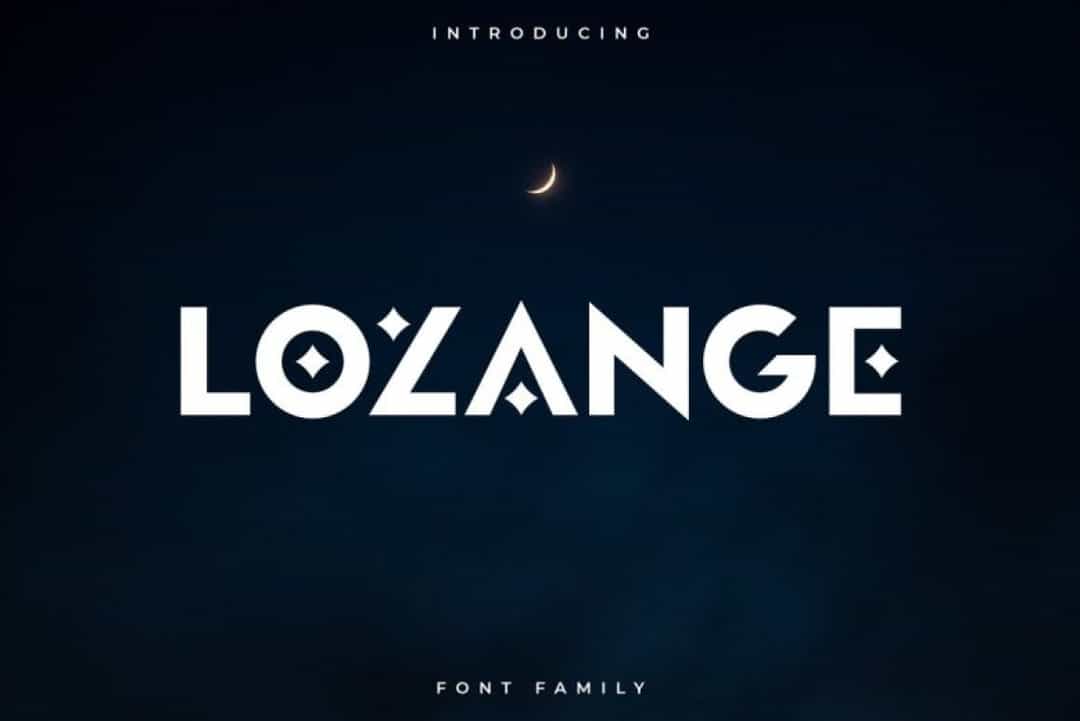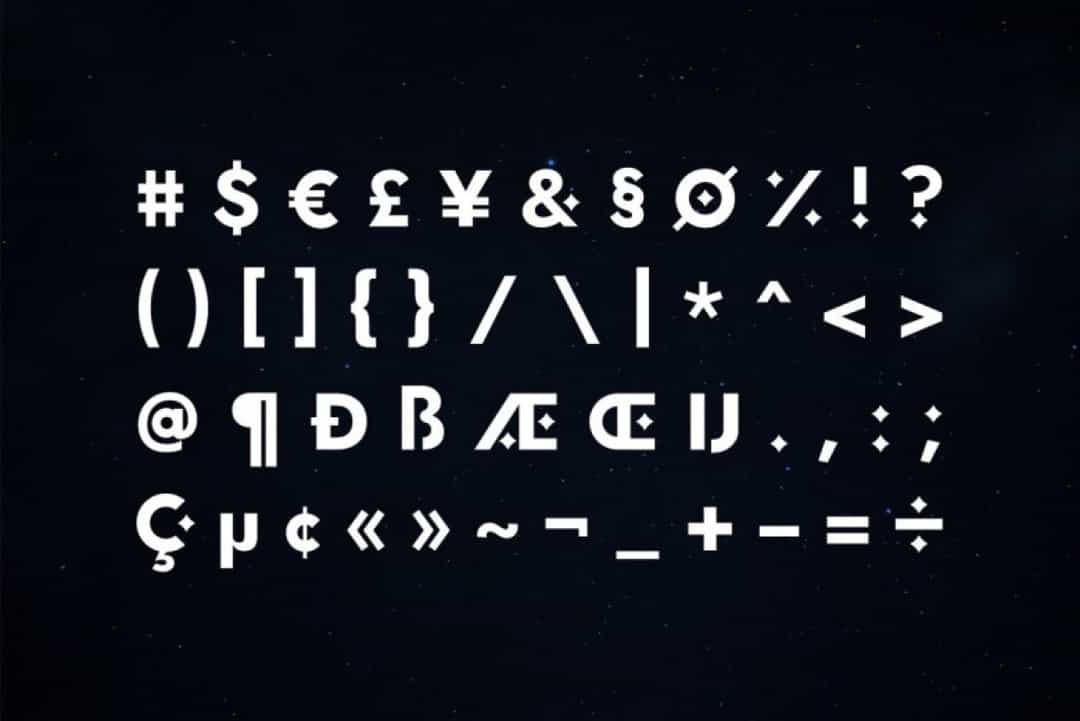
Lozange Font
Lozange is an eye-catching, minimalist and elegant sans serif font designed with flexibility in mind, suitable for both small and large sizes. Ideal for logos, branding projects, design projects, clothing branding packages packaging magazine headers or as trendy text overlay on any image background.